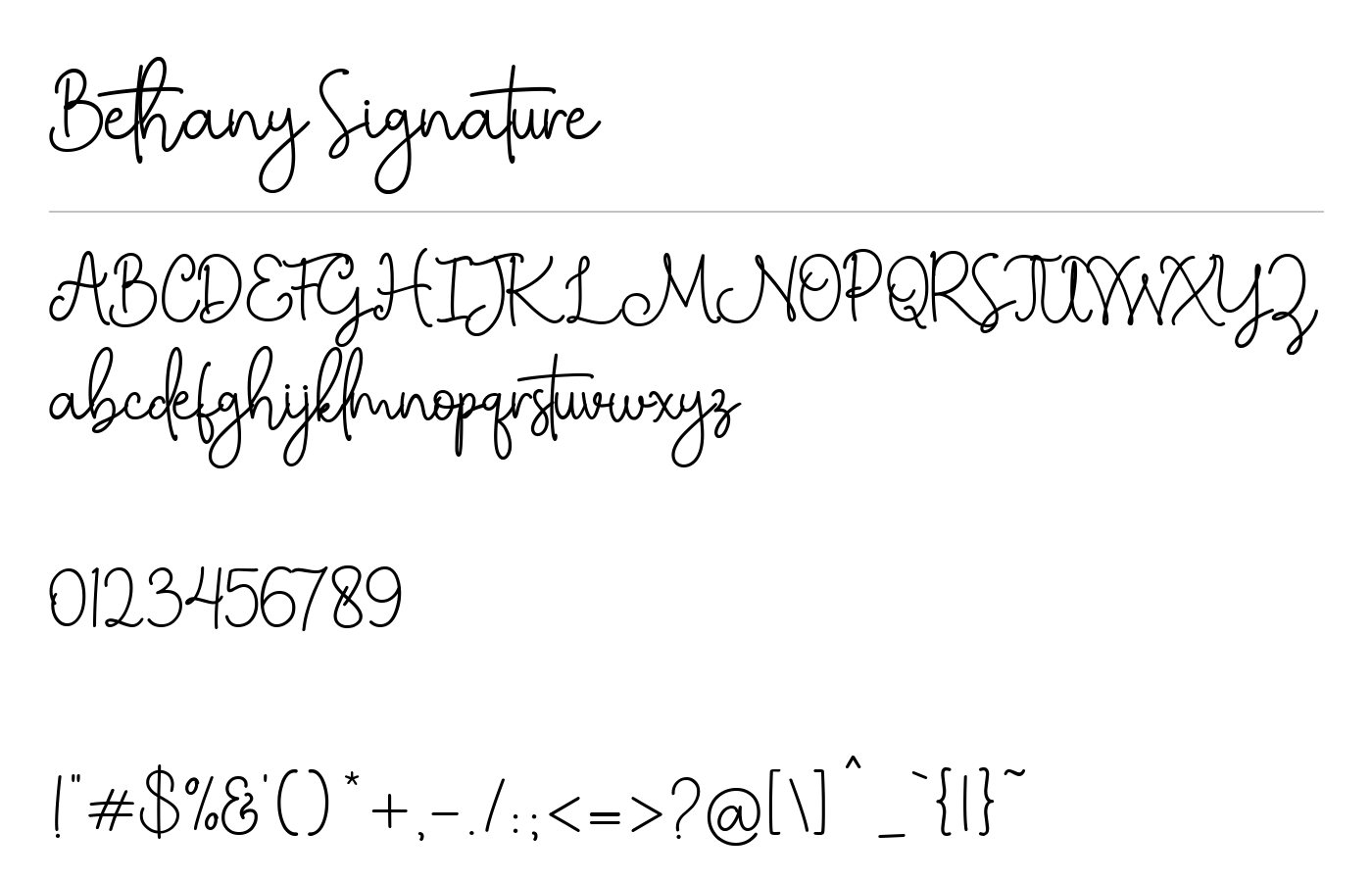
Bethany Signature is a delicate, handwritten script font with a light weight and airy feel, featuring elegant, flowing letterforms that resemble natural handwriting. Its tall x-height and slender strokes give it a personal, sophisticated look perfect for branding, invitations, and creative projects seeking a stylish yet approachable vibe. This font works especially well for fashion, lifestyle, and luxury designs where a graceful, authentic touch is desired.
Bethany Signature Font
About Bethany Signature Font